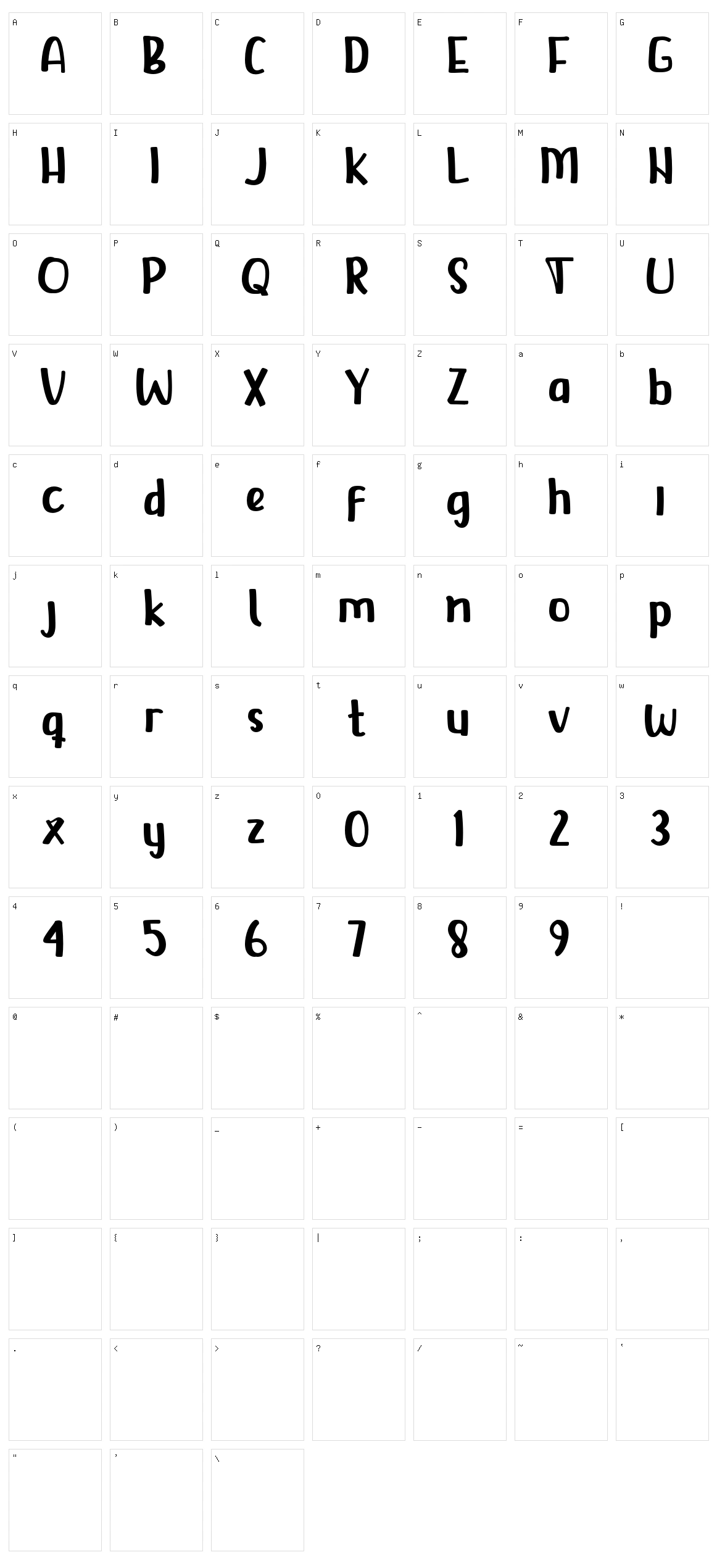
The free font Cats Delight is carefully designed by Trim Studio, showcasing a thoughtful balance of creativity and usability and falls under the Cartoon font style. When you download the ZIP file, it contains only 16.43 KB of font files, making it lightweight and quick to download. Please review the license details below to understand permitted usage and distribution rights. If license information is not available, we recommend using this font for personal projects only or contacting the author directly for commercial usage permissions.